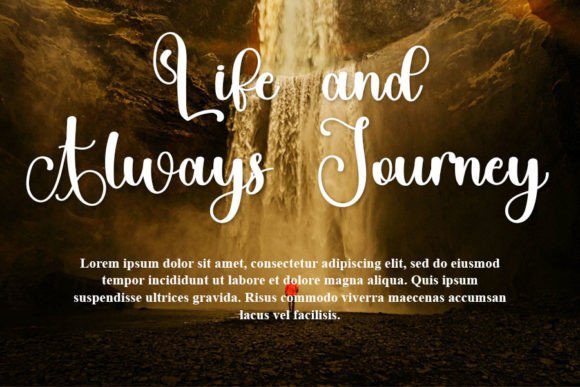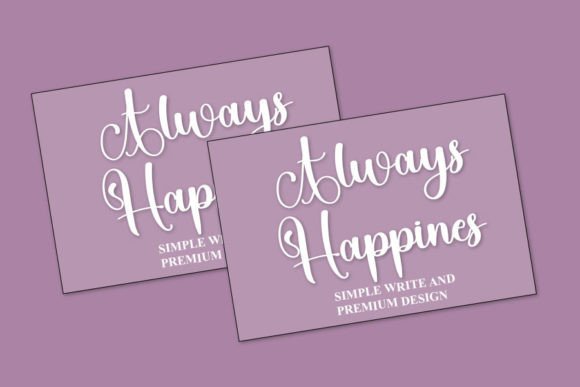
About Sunshine Font
Sunshine is a stylish handwritten script that blends timeless elegance with a fresh, contemporary aesthetic. Inspired by the graceful flow of classic calligraphy, the Sunshine font download offers a sophisticated touch that feels both modern and personal. Its smooth curves and balanced forms make it a standout font for a wide range of creative projects.
Designed to Elevate Your Style
The handcrafted charm of Sunshine shines in every letter. Its refined strokes and carefully crafted spacing give your text a luxurious and graceful appearance. Whether you’re working on upscale branding or heartfelt invitations, this font brings just the right mix of polish and personality.
Where to Use the Sunshine Font
This versatile handwritten script is perfect for:
Wedding Invitations & Save the Dates – Elegant and romantic
Logo & Branding Design – Especially for beauty, fashion, and boutique brands
Social Media Graphics – Ideal for quote posts, reels, or carousel content
Product Packaging – For handmade goods, skincare, candles, or stationery
Blog Titles & Digital Planners – Enhances any content with a classy flair
Greeting Cards – Adds a heartfelt, hand-crafted look
The Sunshine font download brings both warmth and elegance wherever it’s used.
Features Included
Uppercase and lowercase letters
Multilingual support
Numbers and punctuation
Smooth handwritten flow suitable for both print and digital use
Why Choose Sunshine?
What makes the Sunshine font stand out is its versatility. It’s sophisticated enough for high-end branding and charming enough for personal use. Its calligraphic roots give it a classic edge, while its modern form ensures relevance across today’s design trends.
Whether you’re a seasoned designer or a DIY creative, the Sunshine font download will help elevate your typography with ease.
With Sunshine, you’re getting more than just a pretty font—you’re getting a handwritten expression of creativity and class. Bring life, light, and a touch of artistry to every project with this beautifully crafted script.